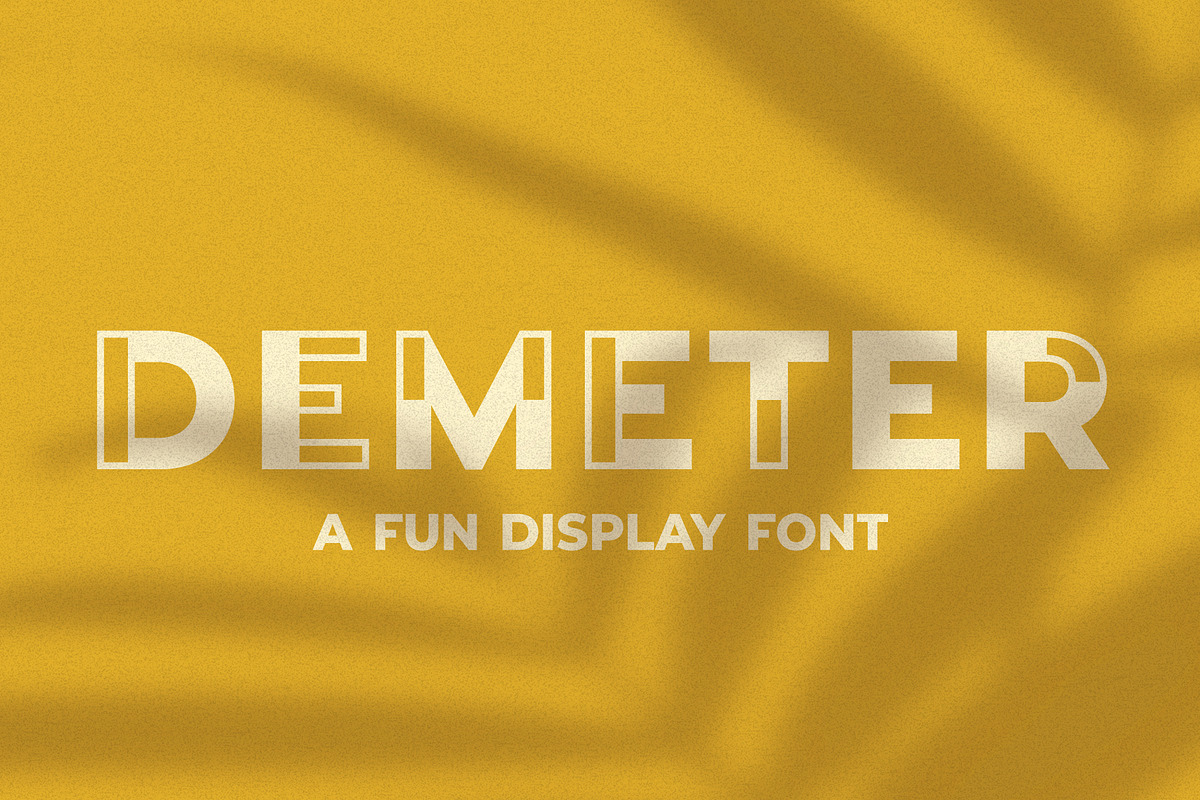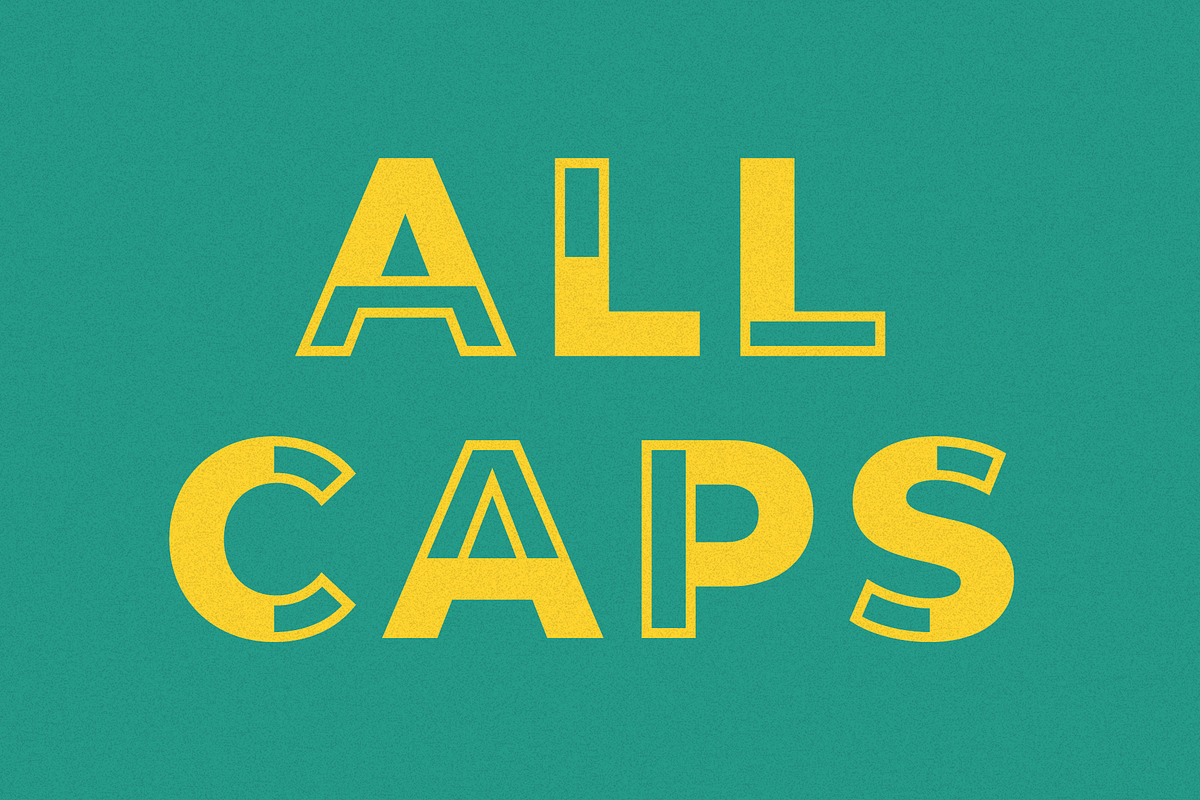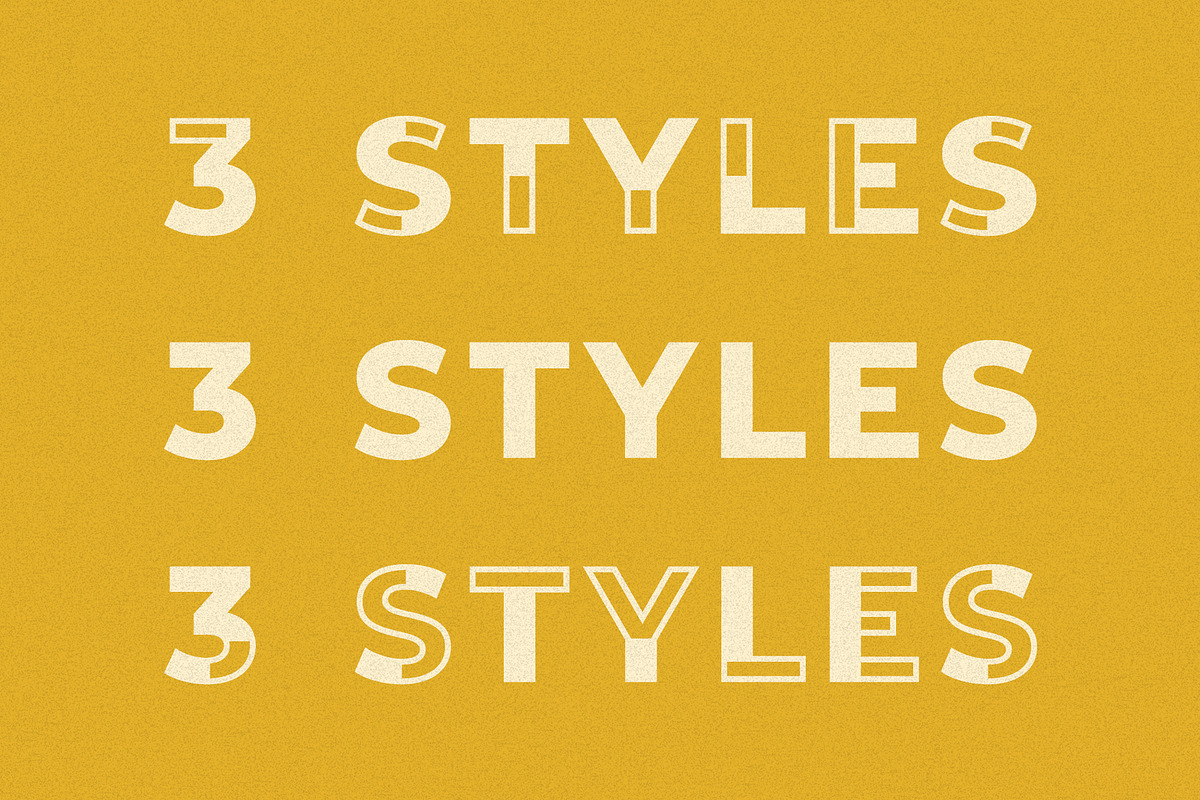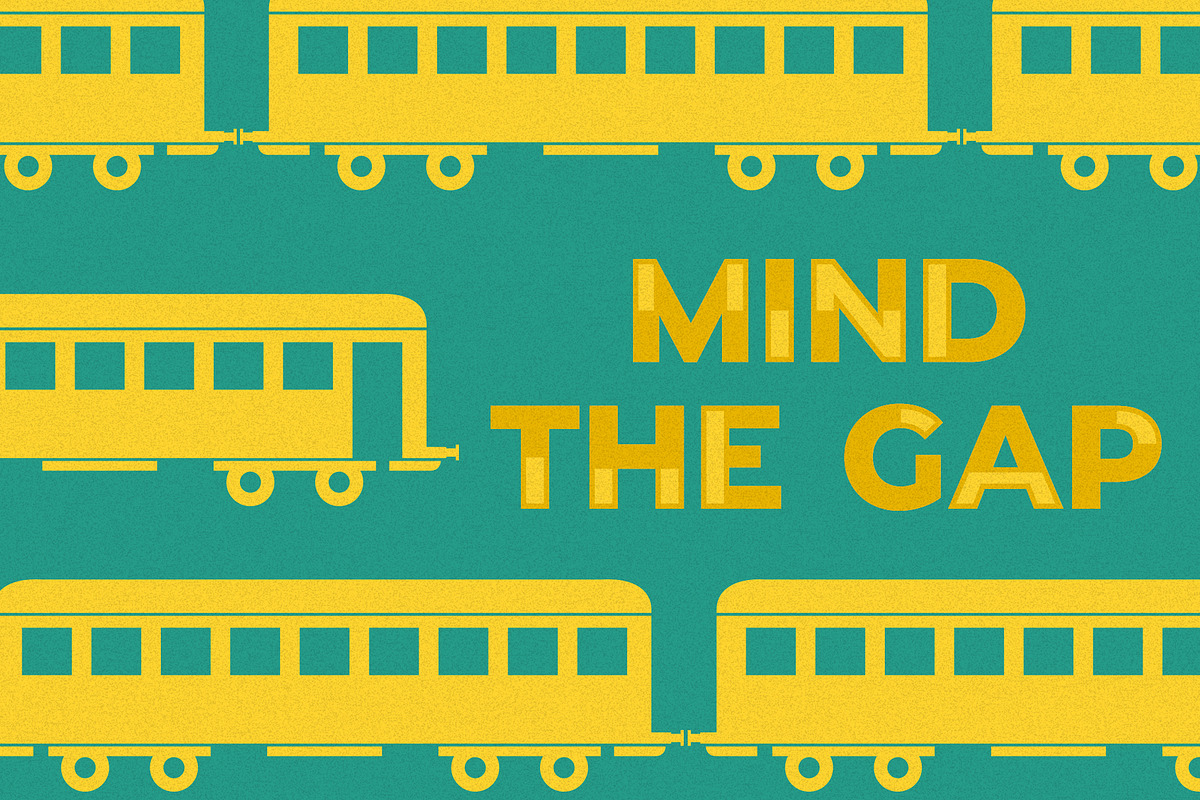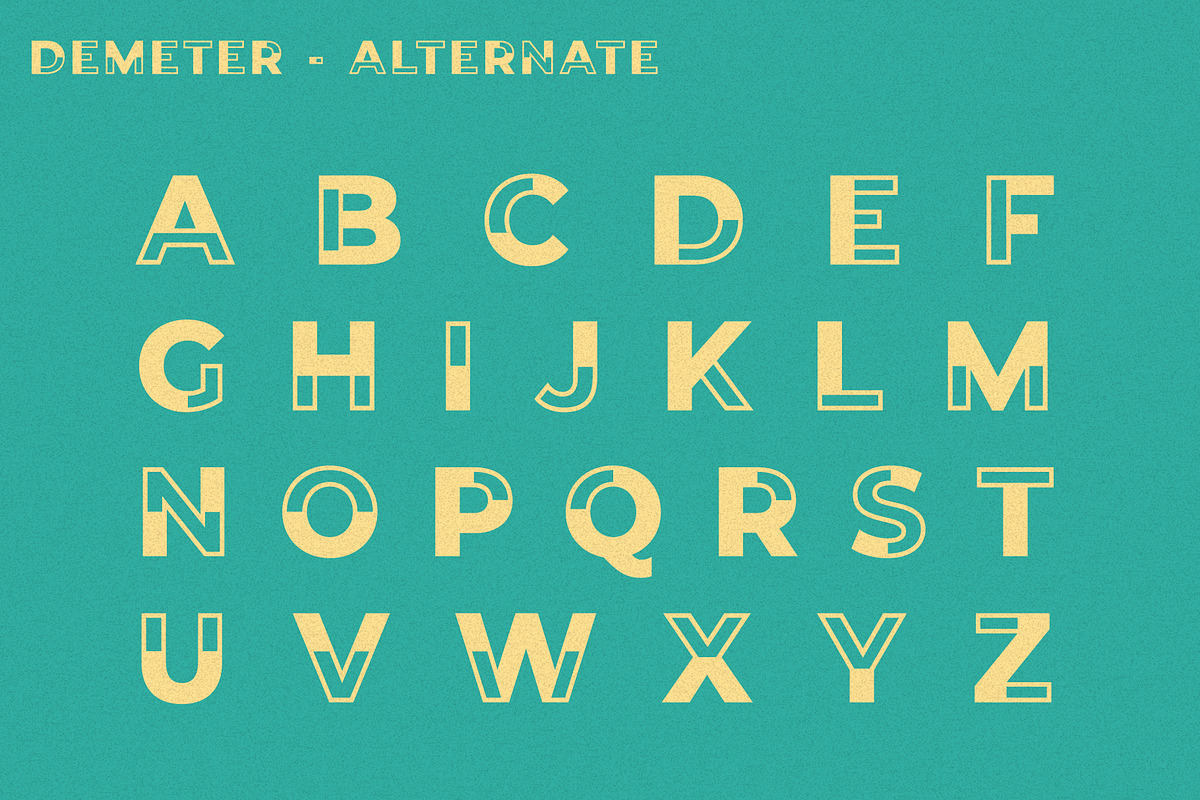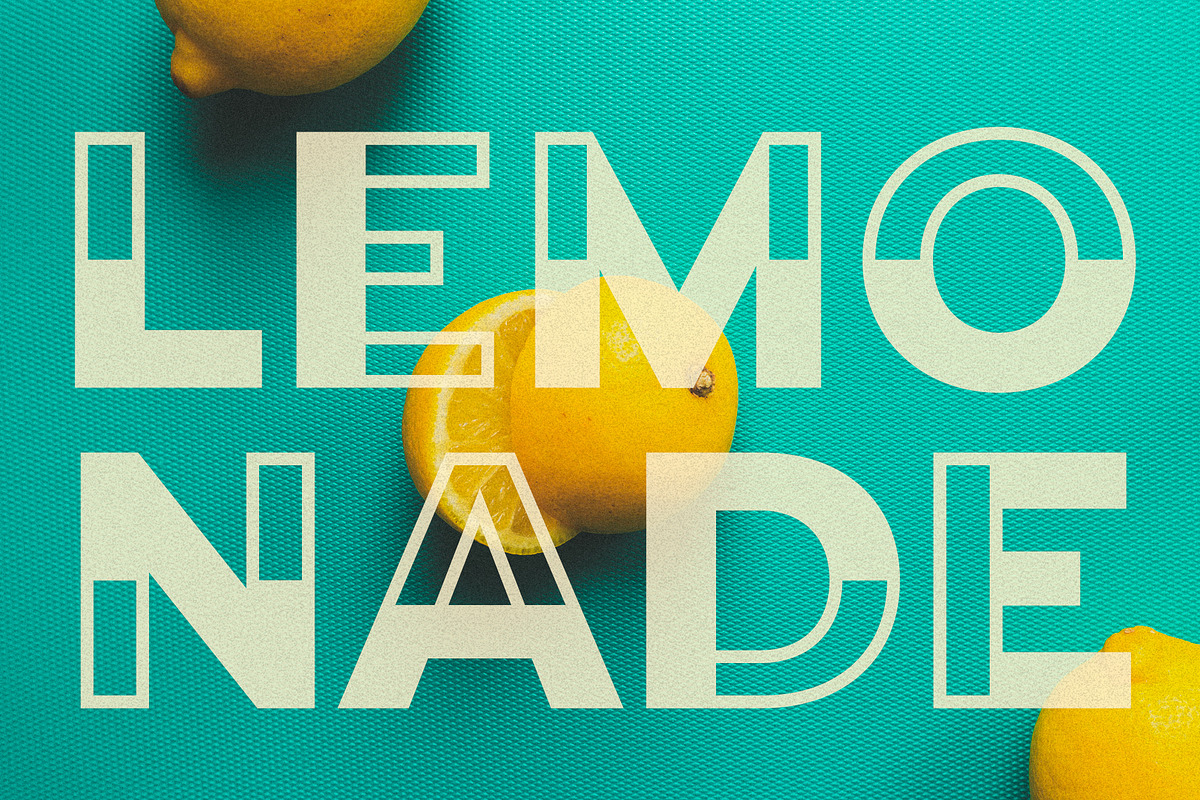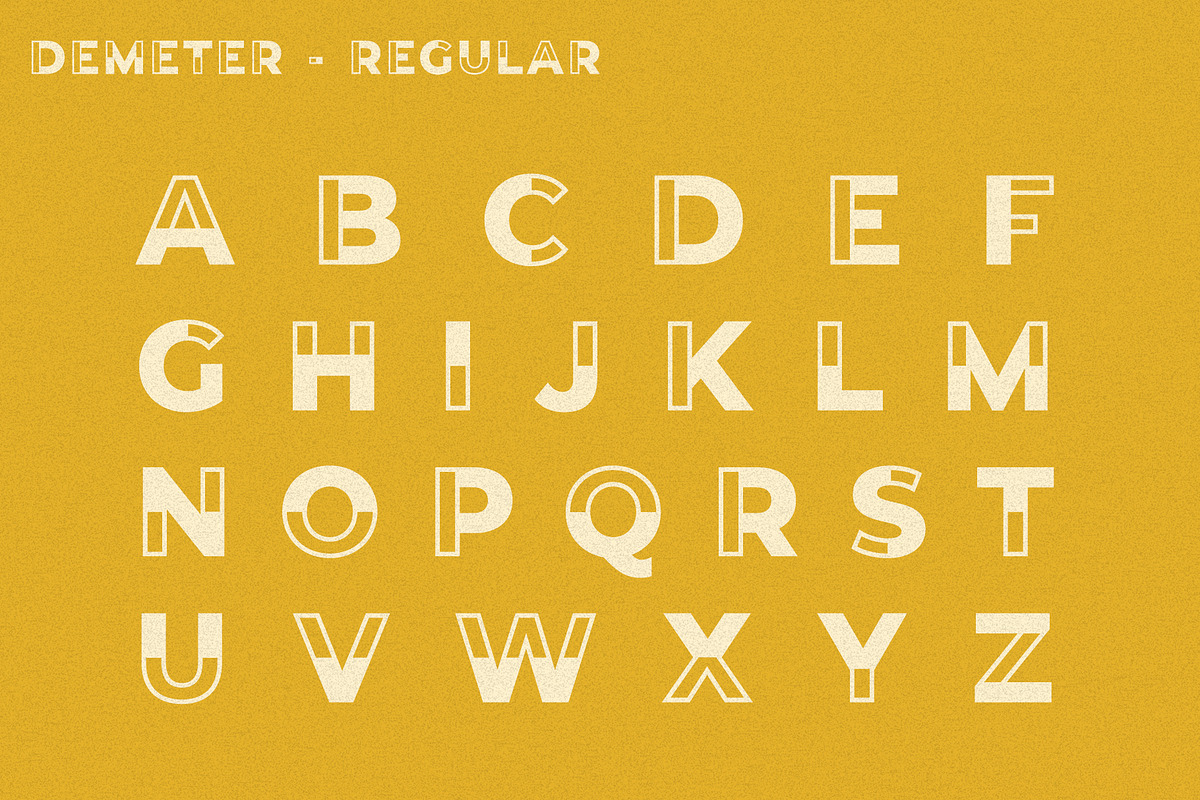
Demeter // A Fun Display Font
Demeter is a fun, all caps display font that comes in three different styles: regular, alternate, and solid. It was inspired by the typeface created for the Wes Anderson movie "Darjeeling Limited".
Demeter is perfect for flyers, posters, logo design, web design, packaging, social media, and so much more!
Numbers and punctuation
Accented characters for the international designer
- Uppercase letters
- Numbers and punctuation
- Accented characters for the international designer